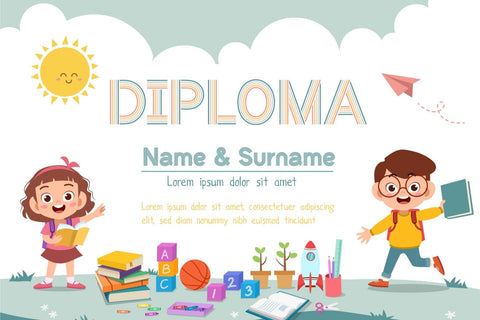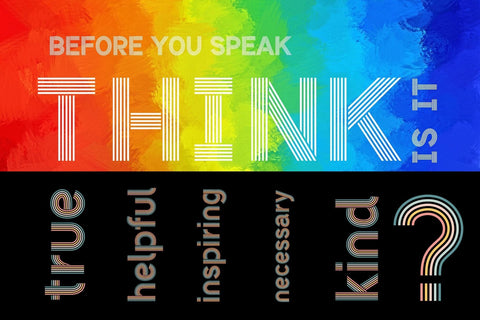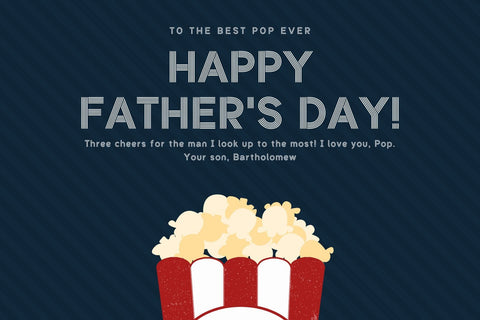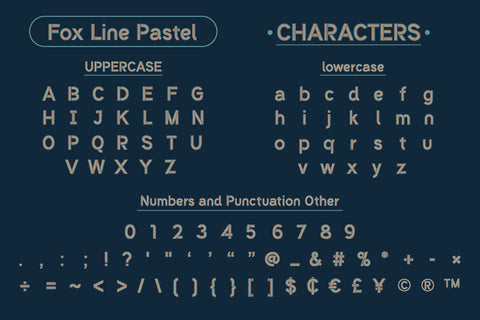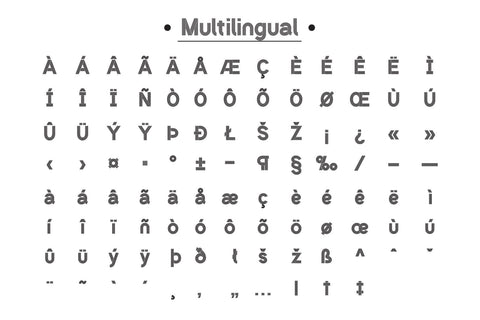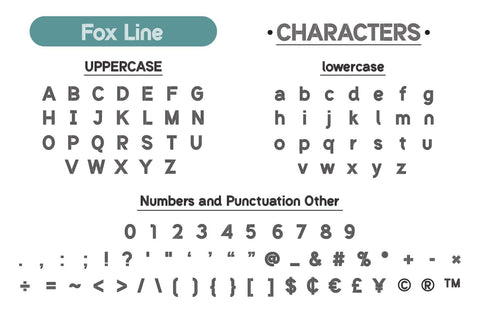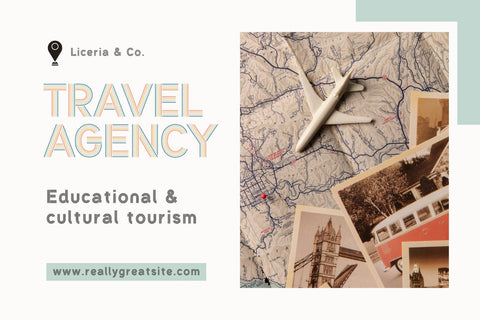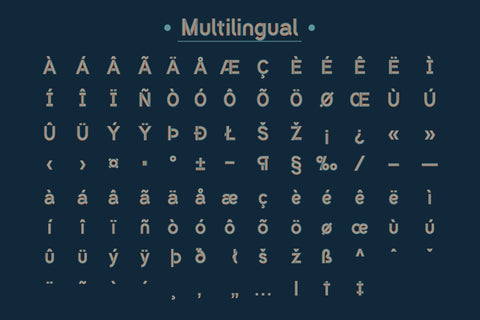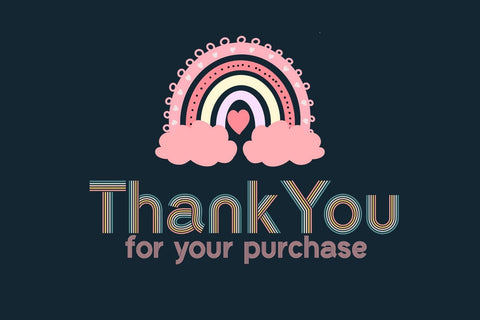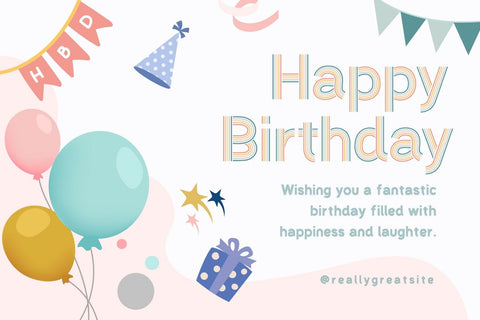
Fox Line Pastel &Fox Line Font Duo
Fox Line Pastel and Fox Line are beautiful, and cool colors and black version fonts. adds a captivating and energetic touch to your designs. Its main feature is its vibrant and expressive design, allowing you to create attention-grabbing headlines, t-shirt typography, banners, product labels, and more.